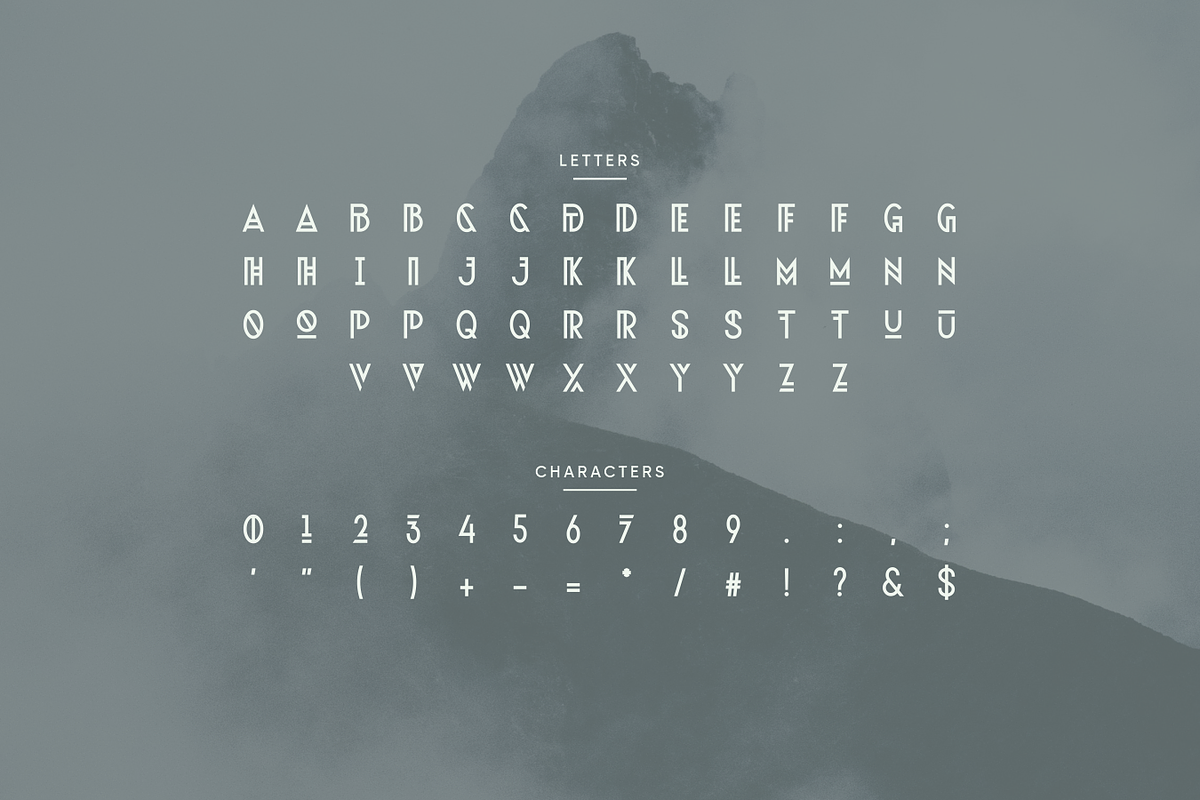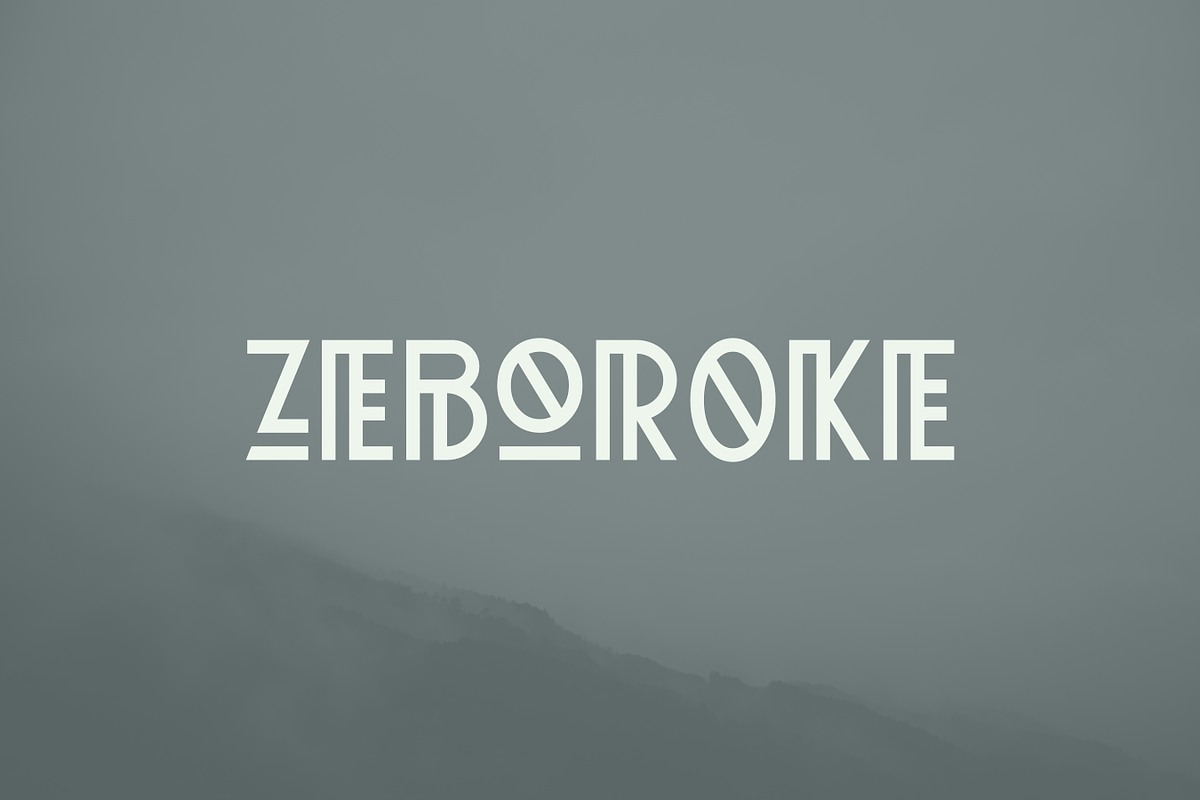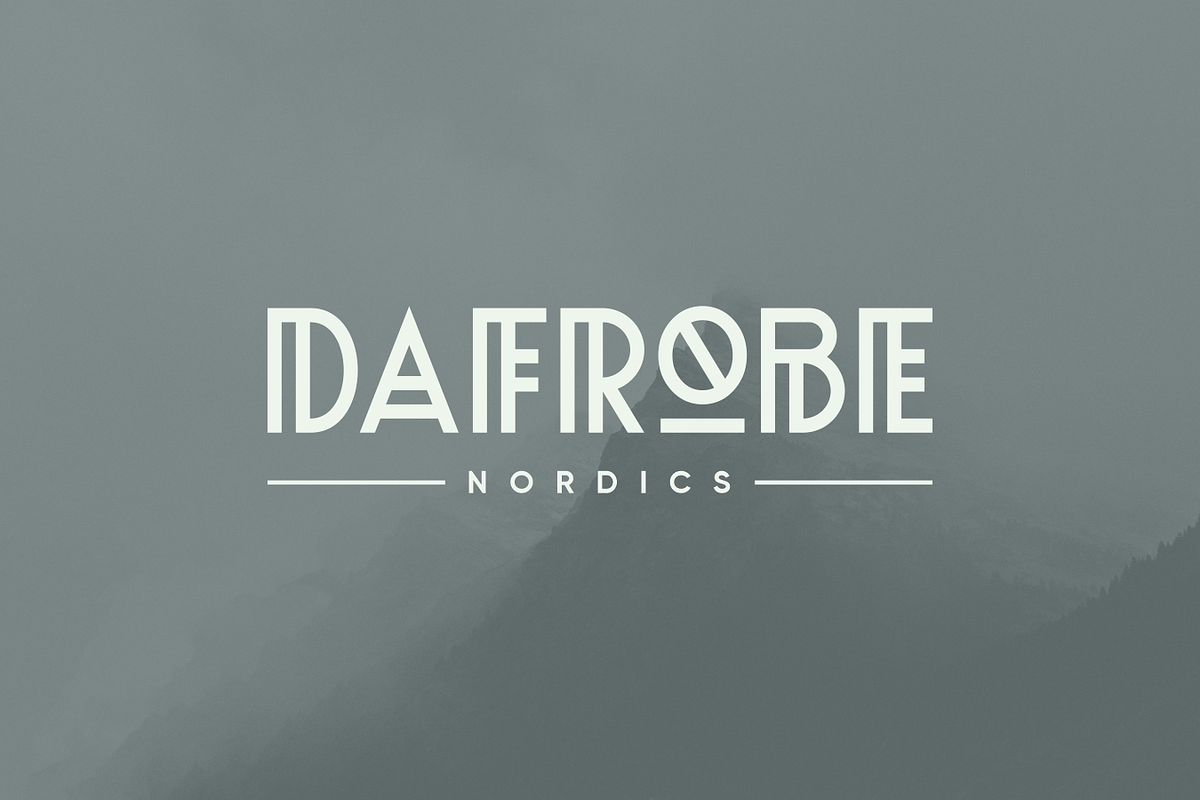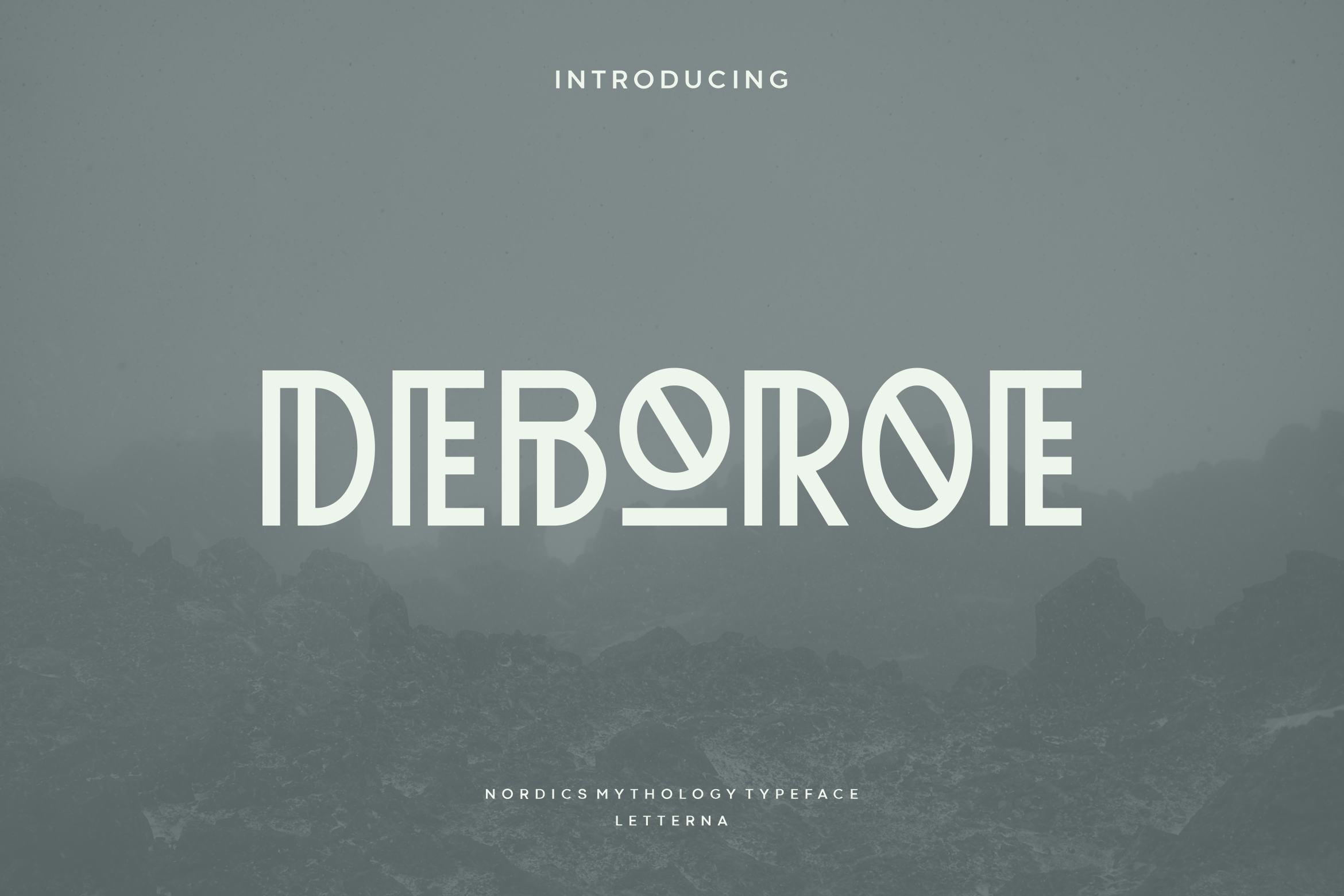
Deboroe - Modern Artdeco Typeface
Deboroe is a unique serif with classy and classic look with vintage feel, inspired by art deco and bohemian runes. This font will work great for craft and tribe design, it will be great for logo, headline, magazine, poster, and anything that requires a unique geometric typeface with a tribal motif. This font has unique and very dynamic uppercase characters, so add it to your creative ideas and notice how it makes them stand out!
- Punctuation & Number